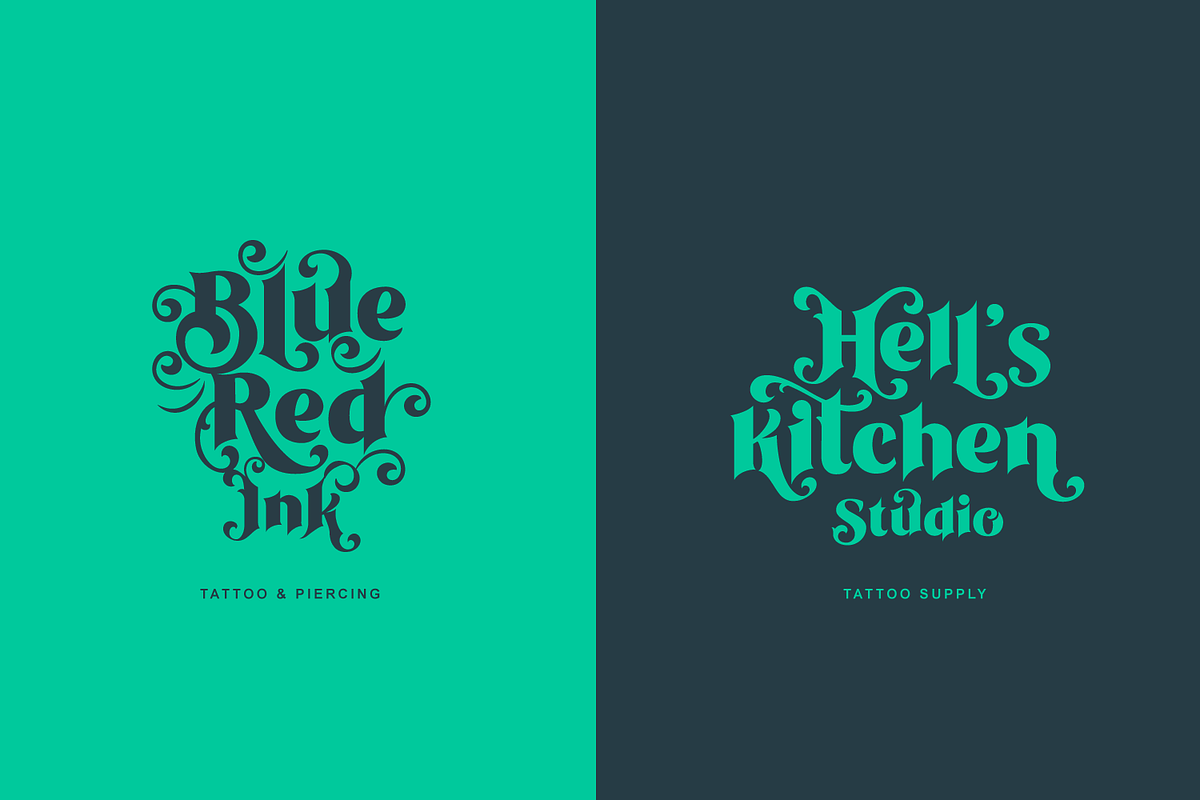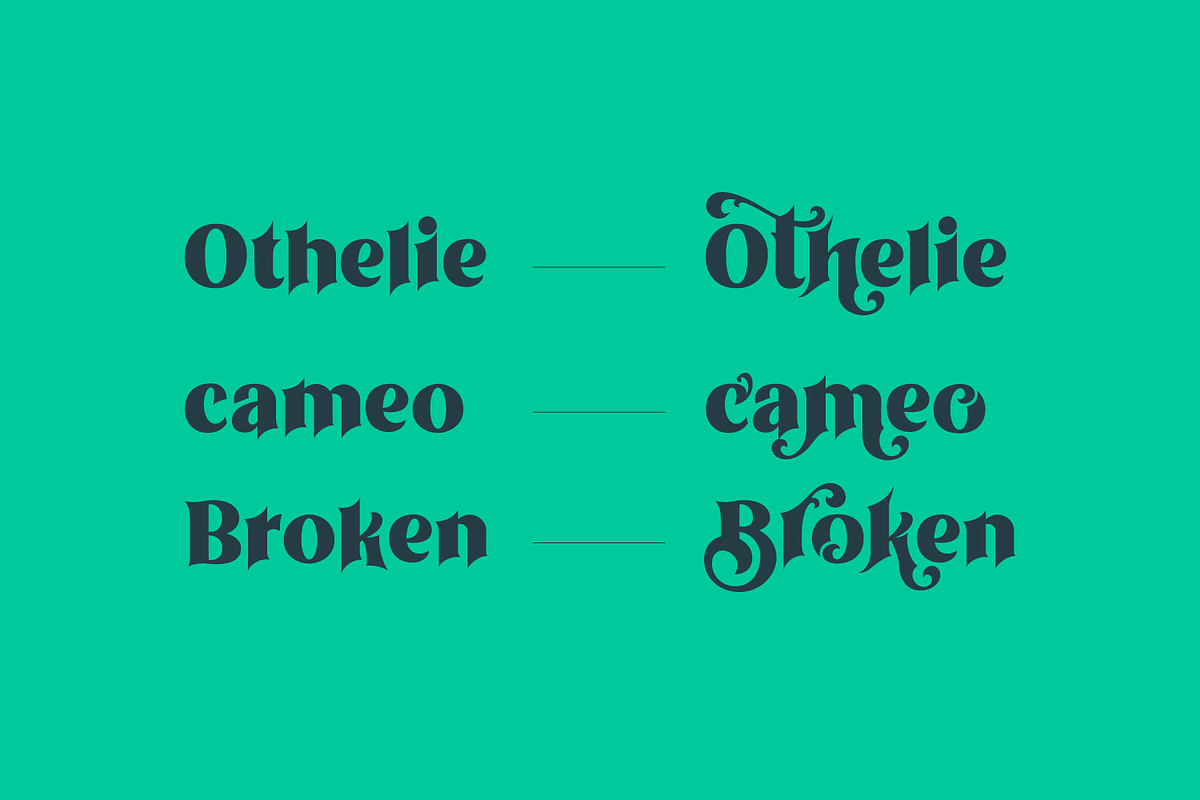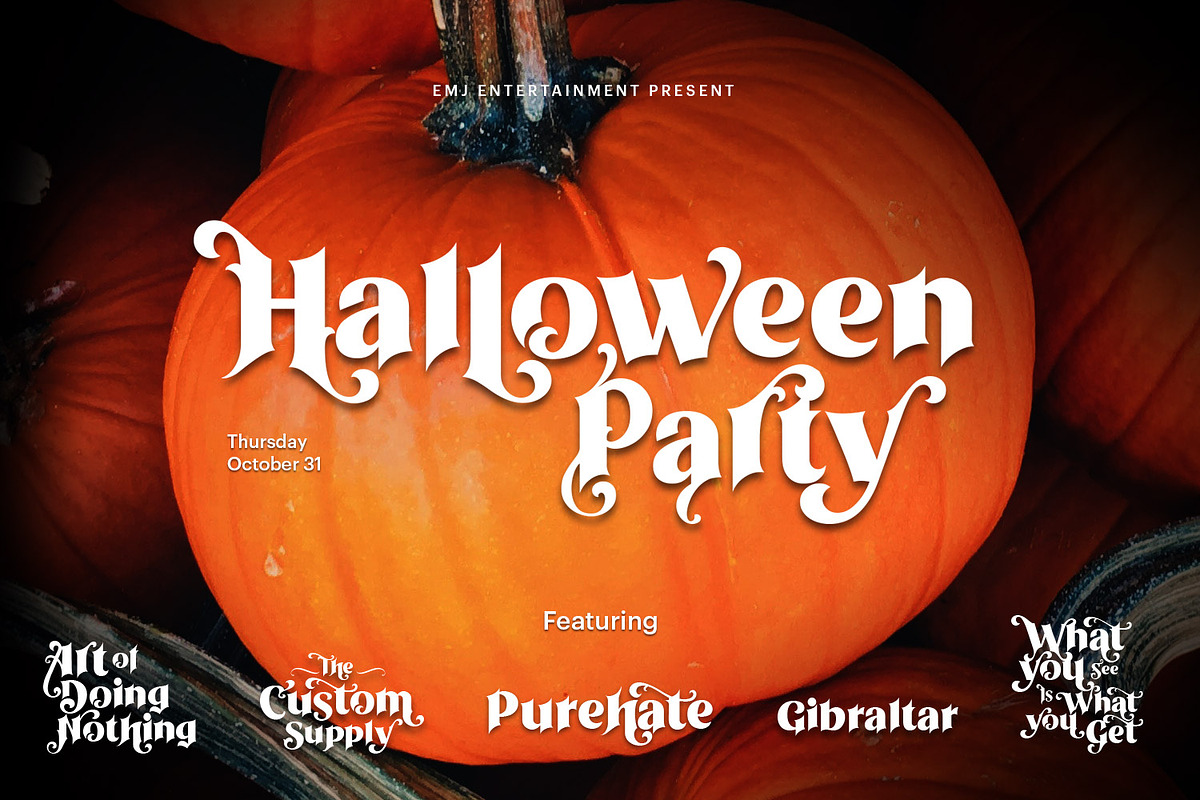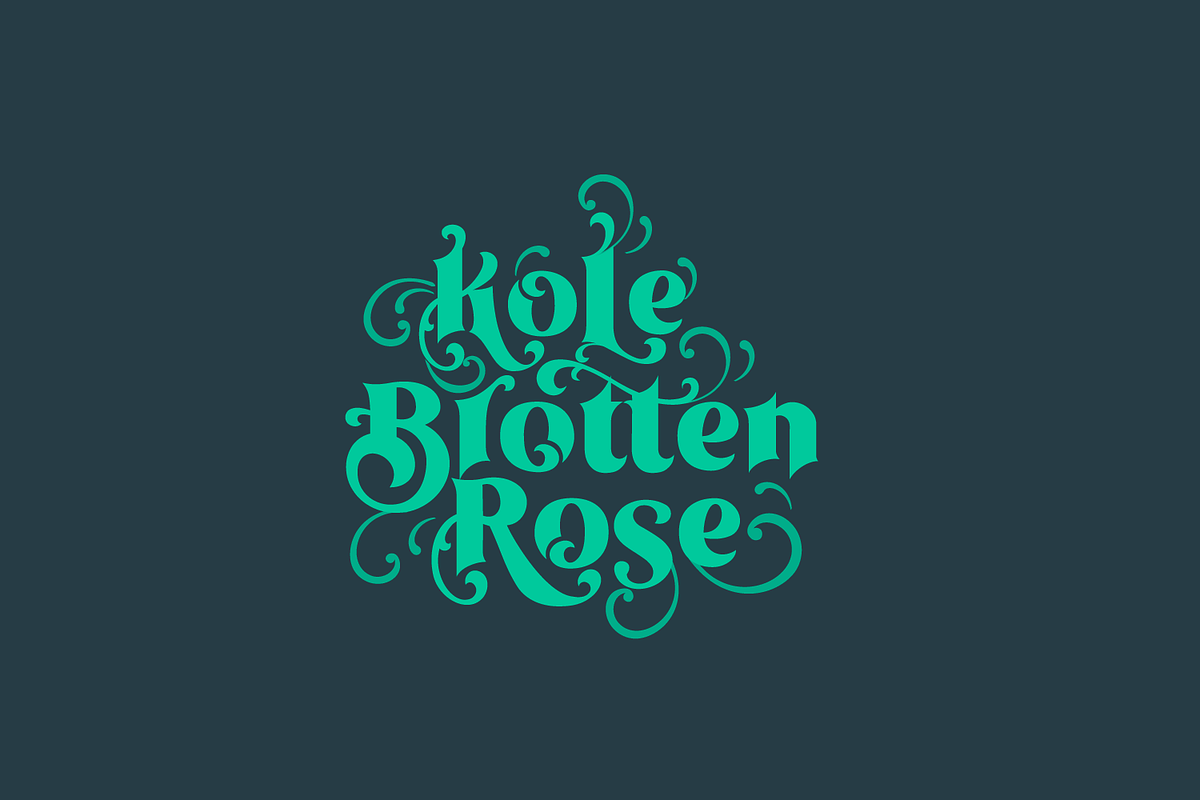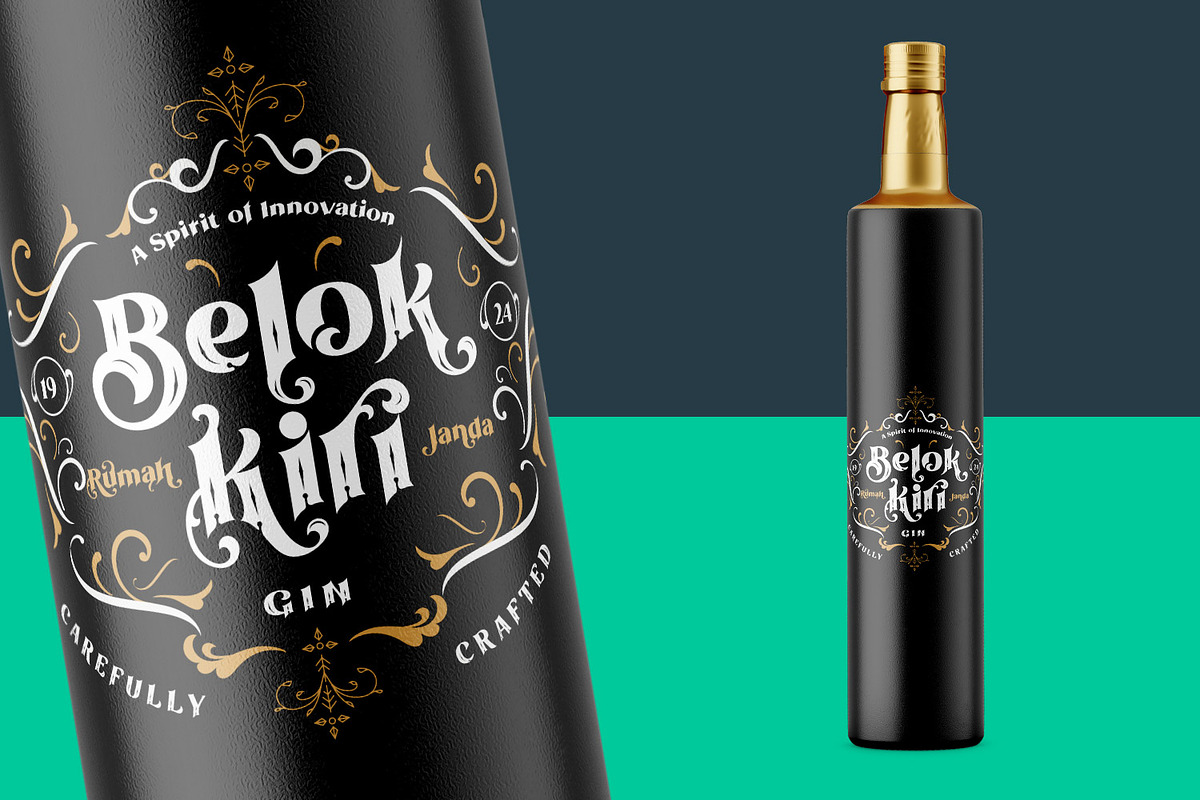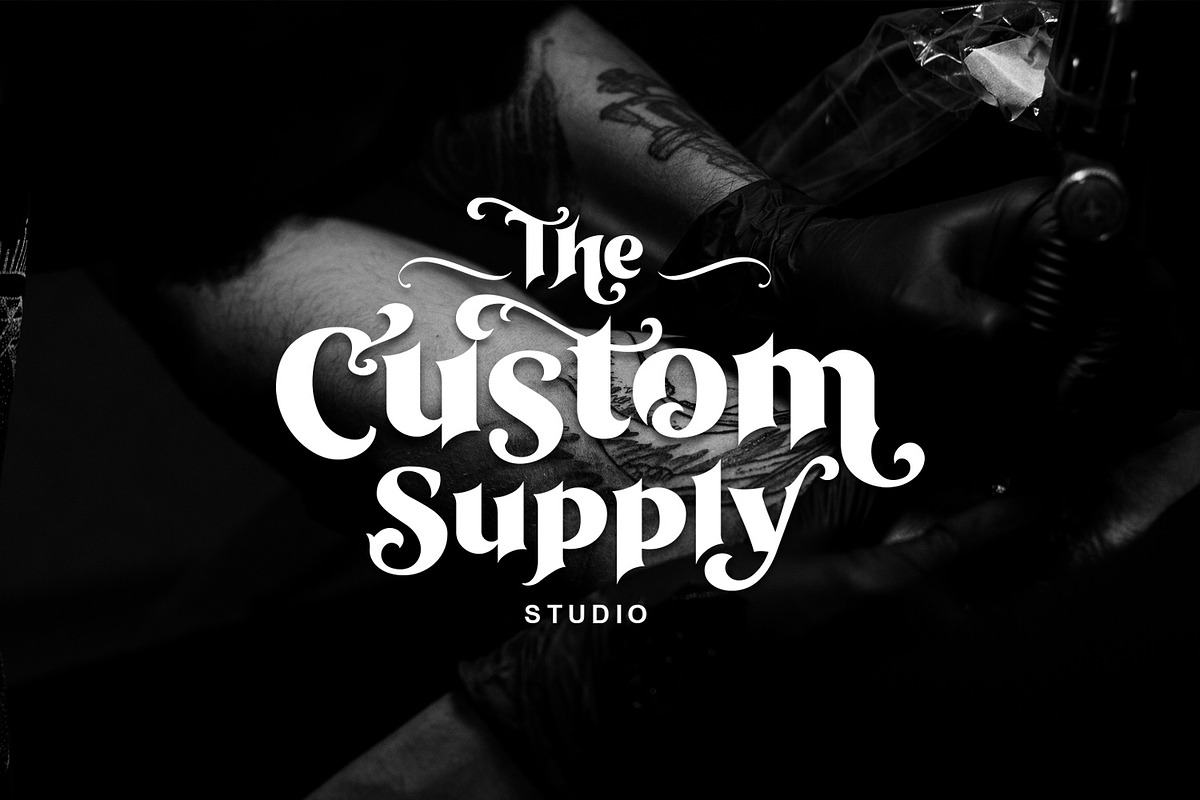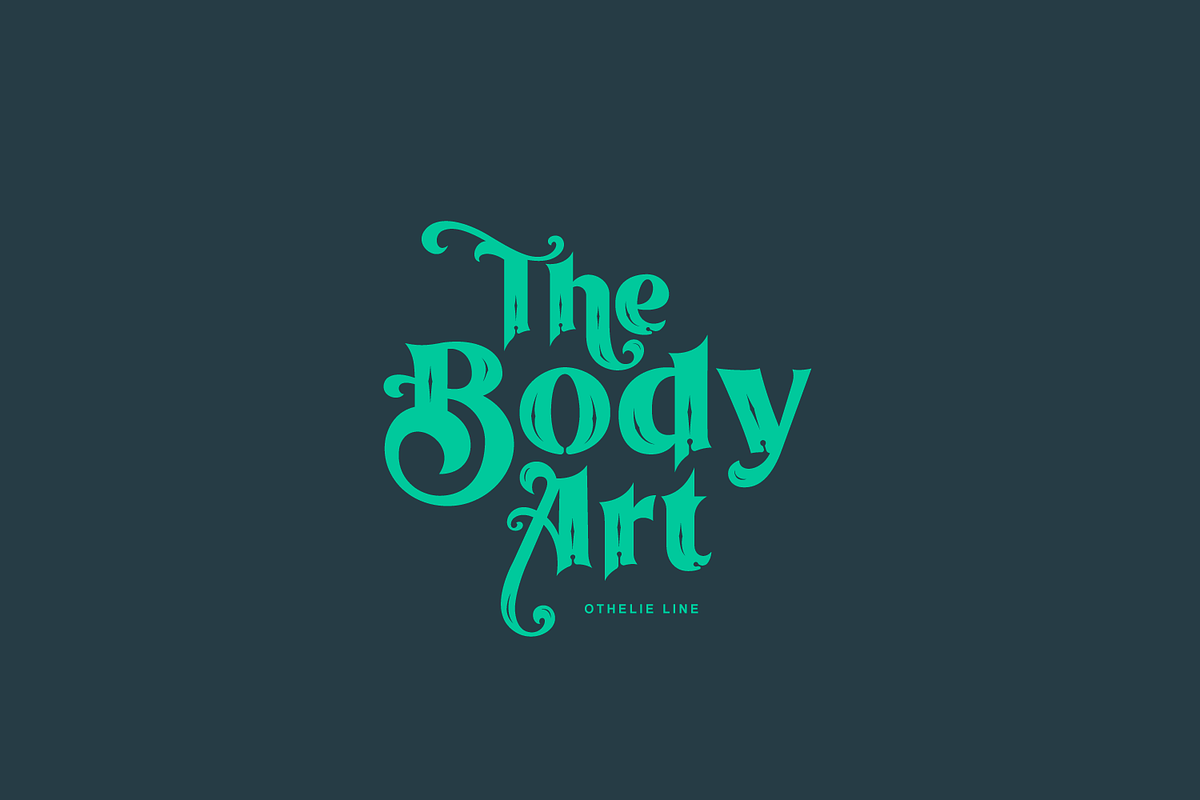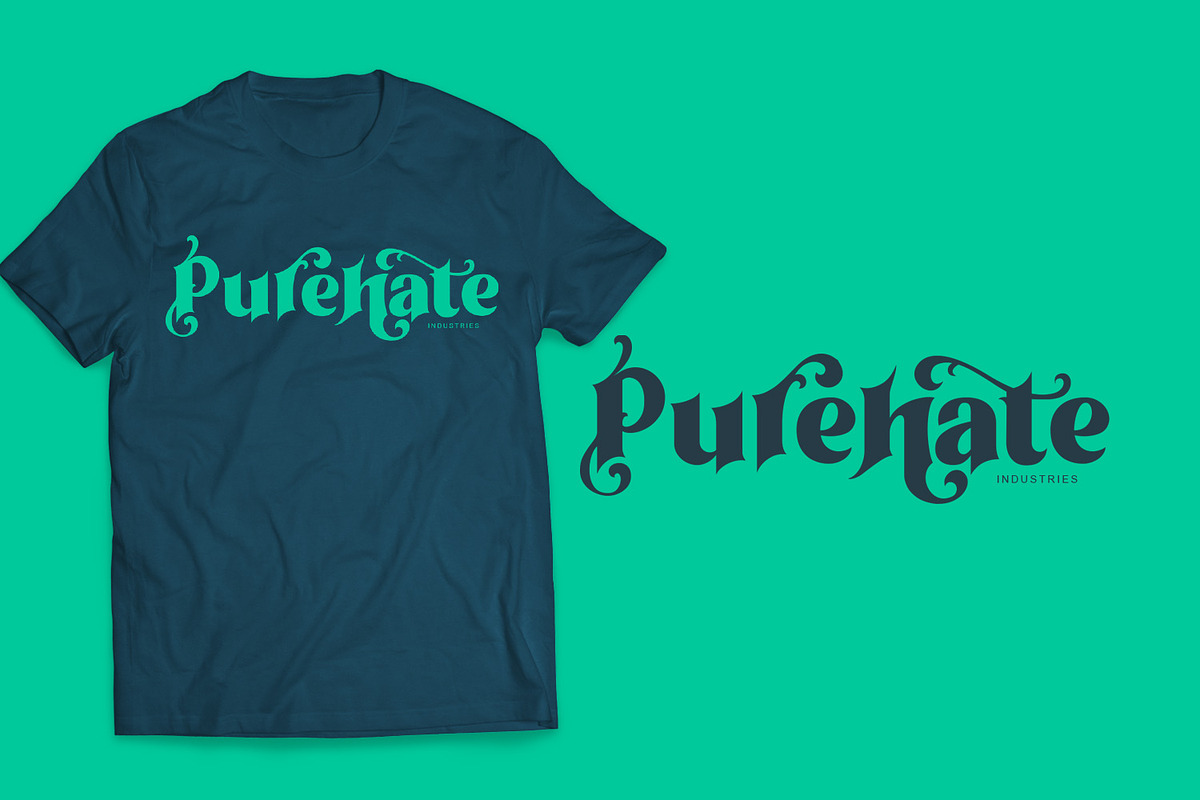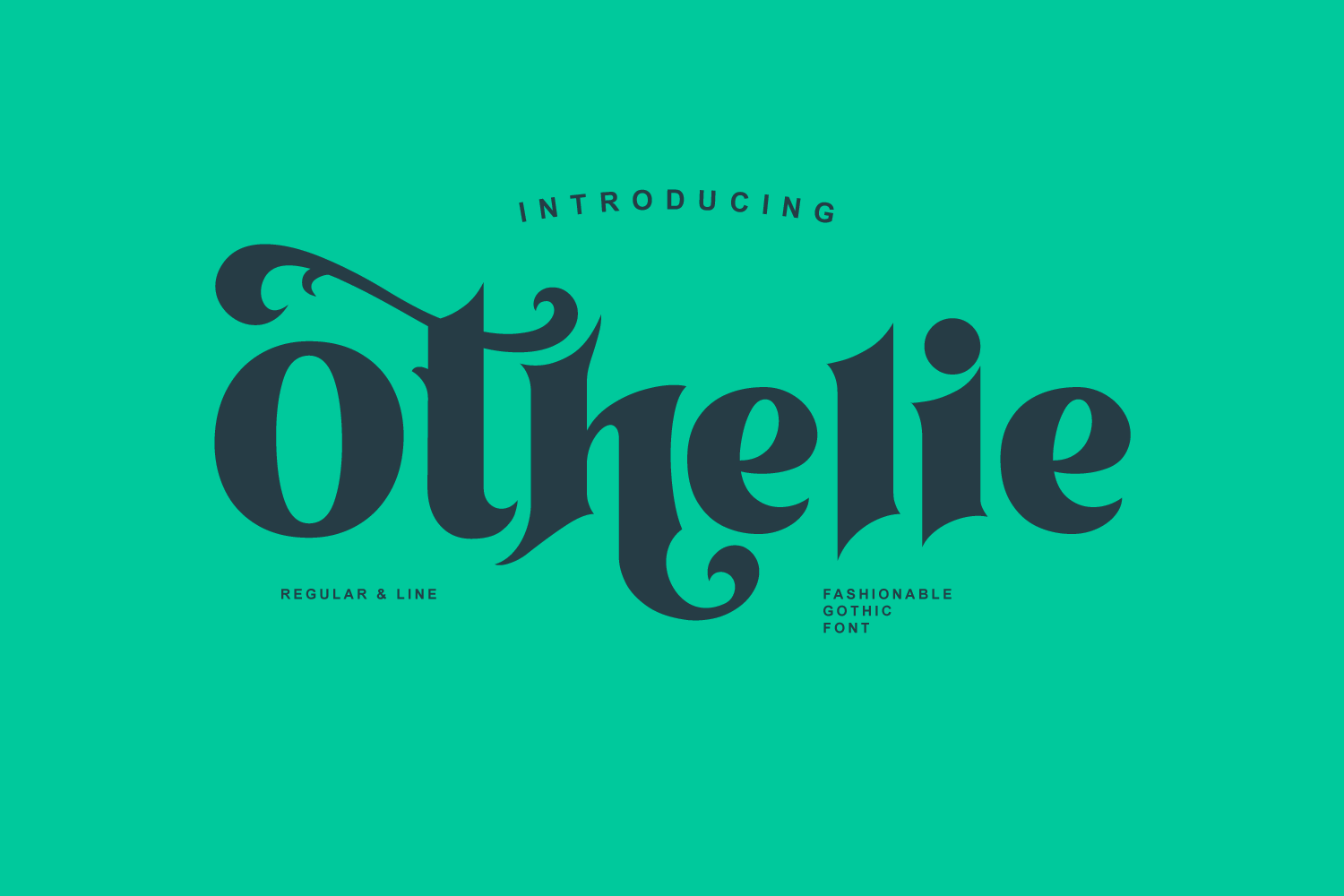
Othelie Font
Othelie - Fashionable Gothic Font
Bold and Beautiful Gothic font comes with Regular & Line version with tons of alternates. Othelie is Perfect for Heading, Logo creation, Clothing, Fashion, Tattoo Lettering, Advertisements, Labels, Halloween theme, Poster and much more! Get inspired by its Fashionable Gothic appeal!